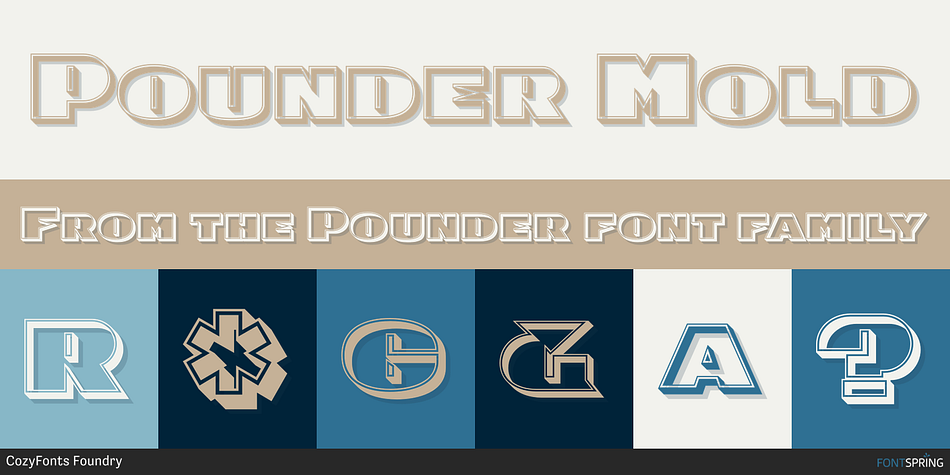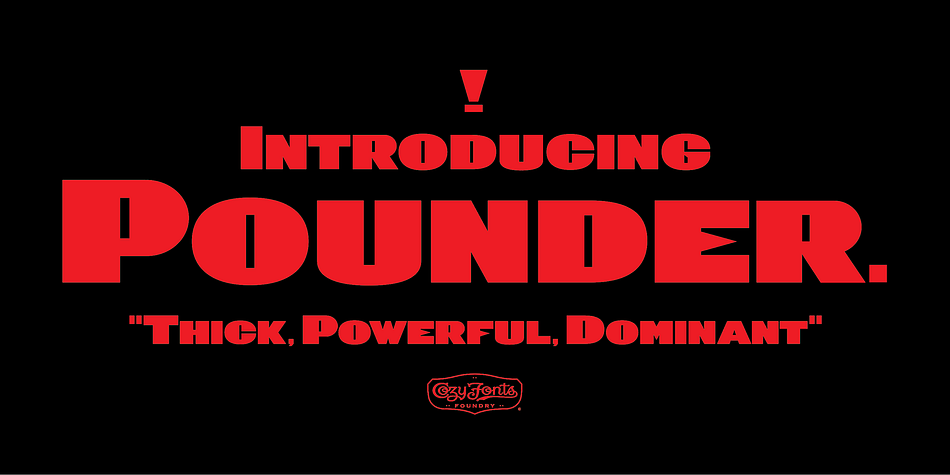
Pounder Mold
Designed by Tom Nikosey, Pounder is a display sans font family. This typeface has five styles and was published by CozyFonts Foundry.
Pounder Fonts were designed by Tom Nikosey / CozyFonts Foundry. This font, like all my fonts, started with pencil sketches based on the letter O. Once I arrived at the comfortable shape I worked out the C, G, & Q. The H, M, and T matched the visual weight and so I moved on to E & S. As the E & S are 2 of the most repeated characters in fonts’ I wanted a little bit extra here.
The font is obviously heavy weighted yet very legible and almost architectural in presence. There are flashes of Art Deco yet
futuristic style. After sketching the feel of this font I was excited by the possibility of the numerals styling. I can see these used for many applications. Why the title Pounder? Why not it seems to fit.